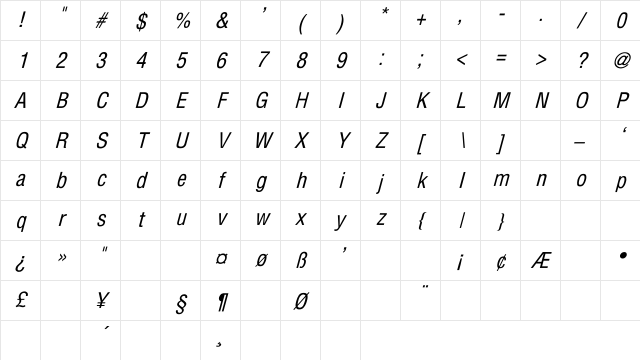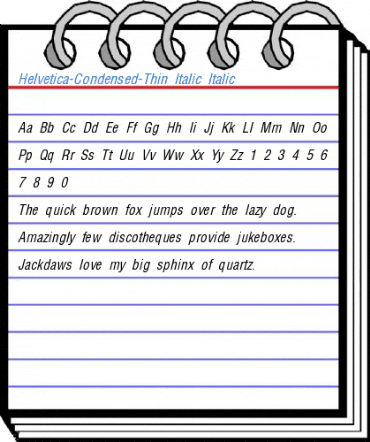
Complete Helvetica-Condensed-Thin Italic Italic glyph index. Displaying only characters natively supported by Helvetica-Condensed-Thin Italic Italic font.
Helvetica-Condensed-Thin Italic is a composed and adaptable typeface that performs quietly and consistently across a wide range of design contexts. The slanted form adds forward momentum and visual energy. Its slender proportions lend an understated elegance to any composition. Its narrow stance lets it pack a punch even in space-constrained designs.
Pro Tip: Use Helvetica-Condensed-Thin Italic for emphasis, pull quotes, and subheadings where its slanted energy can add rhythm to the layout.